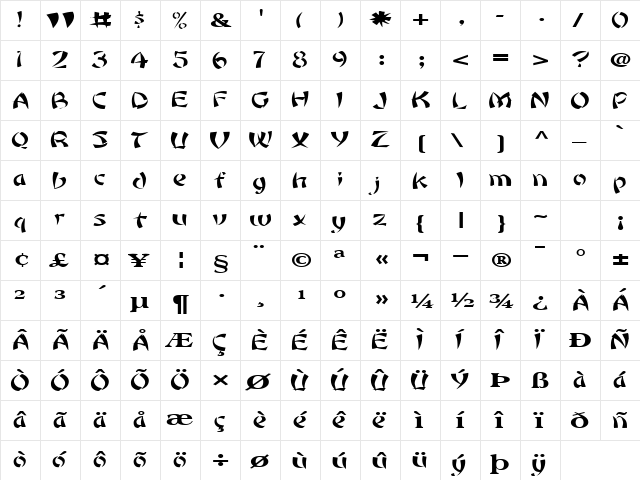
ChinaOneDirect47 Regular Font Preview
ChinaOneDirect47 Regular
ChinaOneDirect47 Regular Font Details
Design Context for ChinaOneDirect47 Typeface
ChinaOneDirect47 is a composed and adaptable typeface that performs quietly and consistently across a wide range of design contexts.